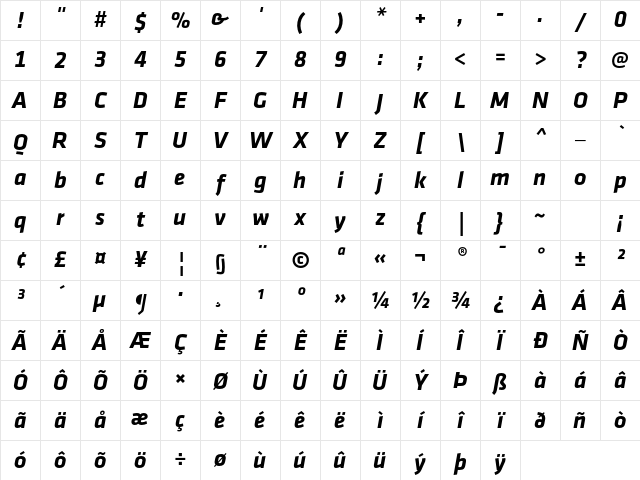
Klavika Bold Bold Italic TF
Style: Bold Italic TF
Foundry: Process Type Foundry
Design Context for Klavika Bold
Klavika Bold is a composed and adaptable typeface that performs quietly and consistently across a wide range of design contexts. The slanted form adds forward momentum and visual energy. Its bold stroke weight gives it real presence on the page.
Pro Tip: Use Klavika Bold for emphasis, pull quotes, and subheadings where its slanted energy can add rhythm to the layout.
Who designed the Klavika Bold Bold Italic TF font?